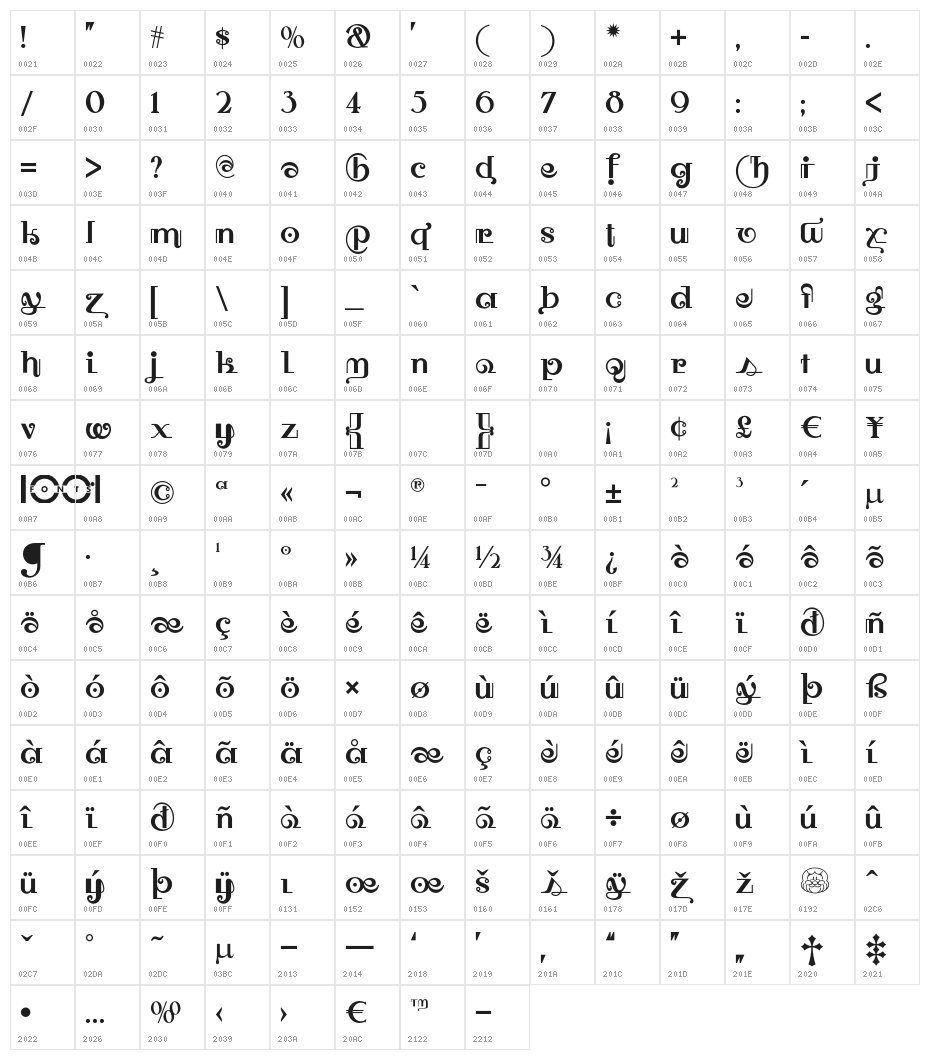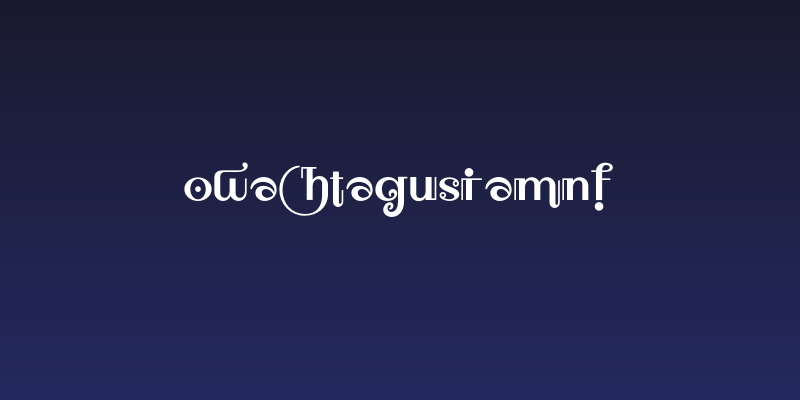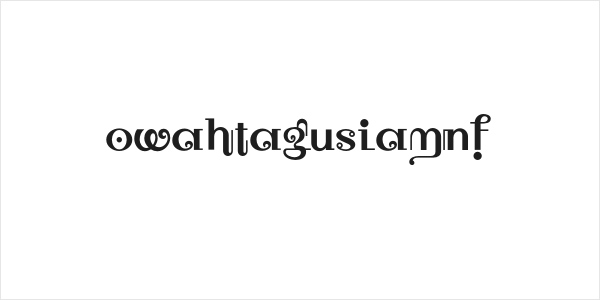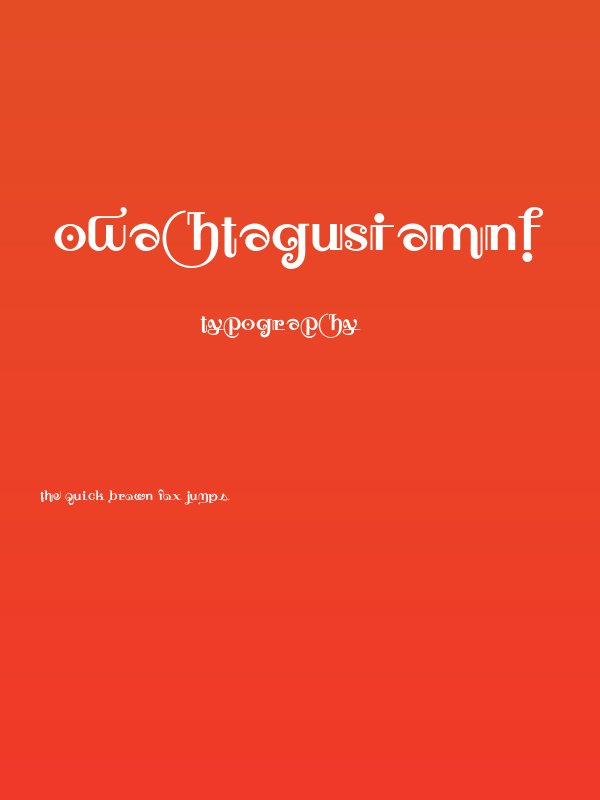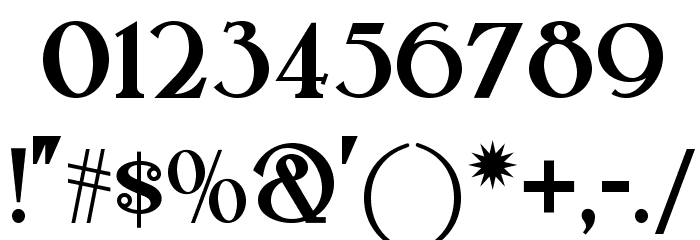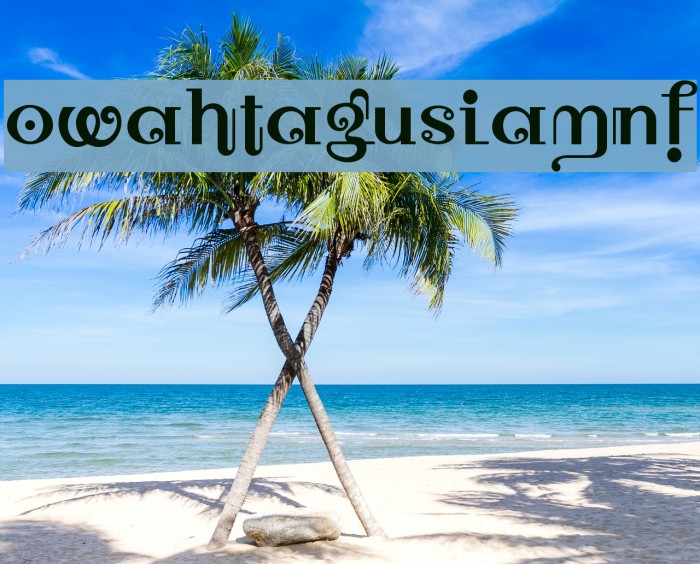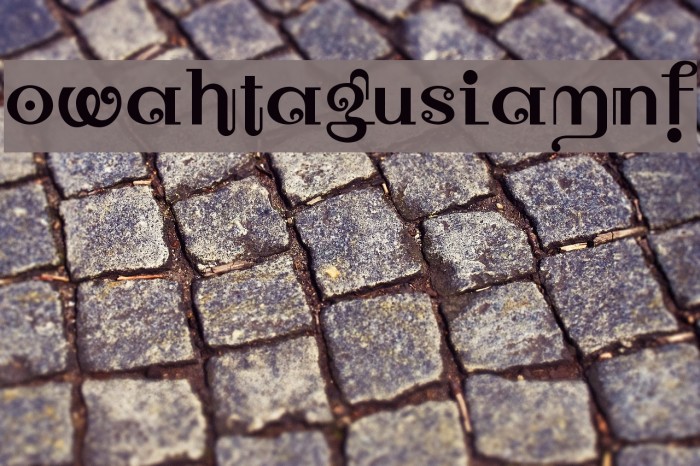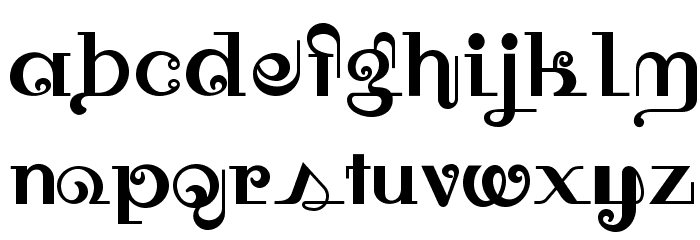
OwahTaguSiamNF Font
OwahTaguSiamNF Description
This font features a unique blend of modern and decorative elements, characterized by its distinctively curved and looped serifs. The uppercase letters exhibit a bold presence with intricate detailing, while the lowercase letters maintain a playful yet sophisticated style. Numbers are designed with a consistent weight, ensuring readability. Special characters are creatively styled, adding to the font's overall artistic appeal. The font's design is ideal for projects that require a touch of elegance and creativity, making it suitable for branding, invitations, and artistic displays.
| Overall Style | Modern, Decorative |
| Use Case | Logos, Headlines, Artistic displays |
| Proposed Projects | Ideal for branding, invitations, artistic displays, and creative projects. |